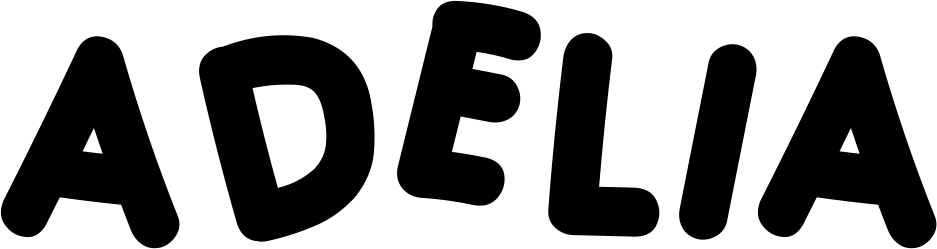
Adelia Font
Need a cartoon font for your text layouts? So you should take a look at this case here. Adelia with messed up and semi-bold letters can be suitable for flyers, books, kids’ programs or apps, and so on. This fat rounded f…
Need a cartoon font for your text layouts? So you should take a look at this case here. Adelia with messed up and semi-bold letters can be suitable for flyers, books, kids’ programs or apps, and so on. This fat rounded font doesn’t support lowercase letters. Click on the download button and improve your designs.